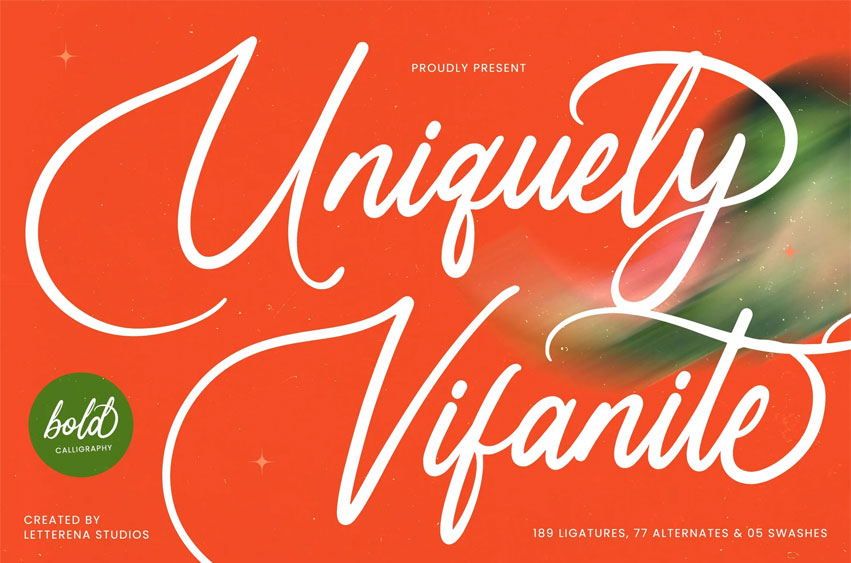
Uniquely Vifanite Font
Uniquely Vifanite Font is suitable to complement your digital and printed creative products. This font is perfect for posters, social media posts, branding, personal projects, etc.